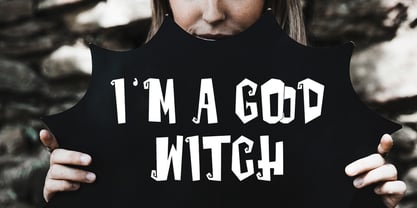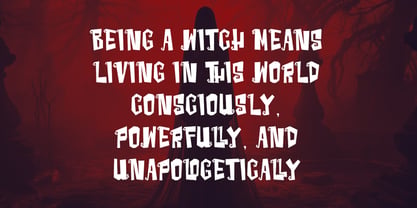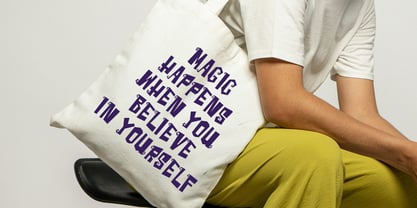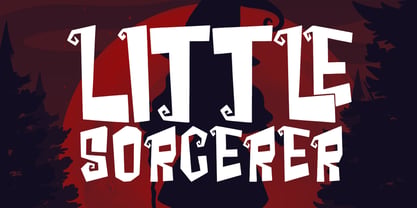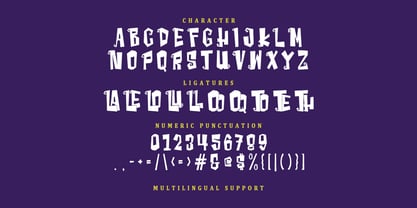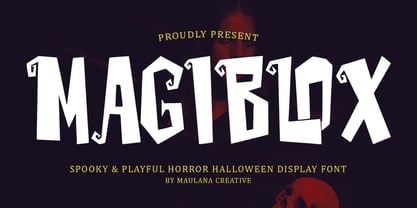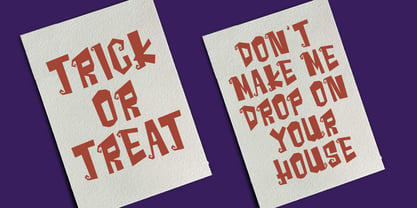
MC Magiblox
by Maulana Creative
The MC Magiblox Font Family was designed by Gilang Maulana and published by Maulana Creative. MC Magiblox contains 1 styles. More about this family
Magiblox is a handcrafted display font designed to bring a perfect balance of horror, mystery, and playful quirkiness to your creative projects. Inspired by classic spooky cartoons and modern horror aesthetics, this font features unique "curly" serifs and blocky, irregular letterforms that give your text a hand-drawn, eccentric vibe. Whether you are working on a Halloween party invitation, a spooky book cover, horror-themed branding, or quirky social media graphics, Magiblox provides the high-impact look you need. Its bold presence ensures your titles stand out, while its whimsical details add a touch of "dark magic" to every word.